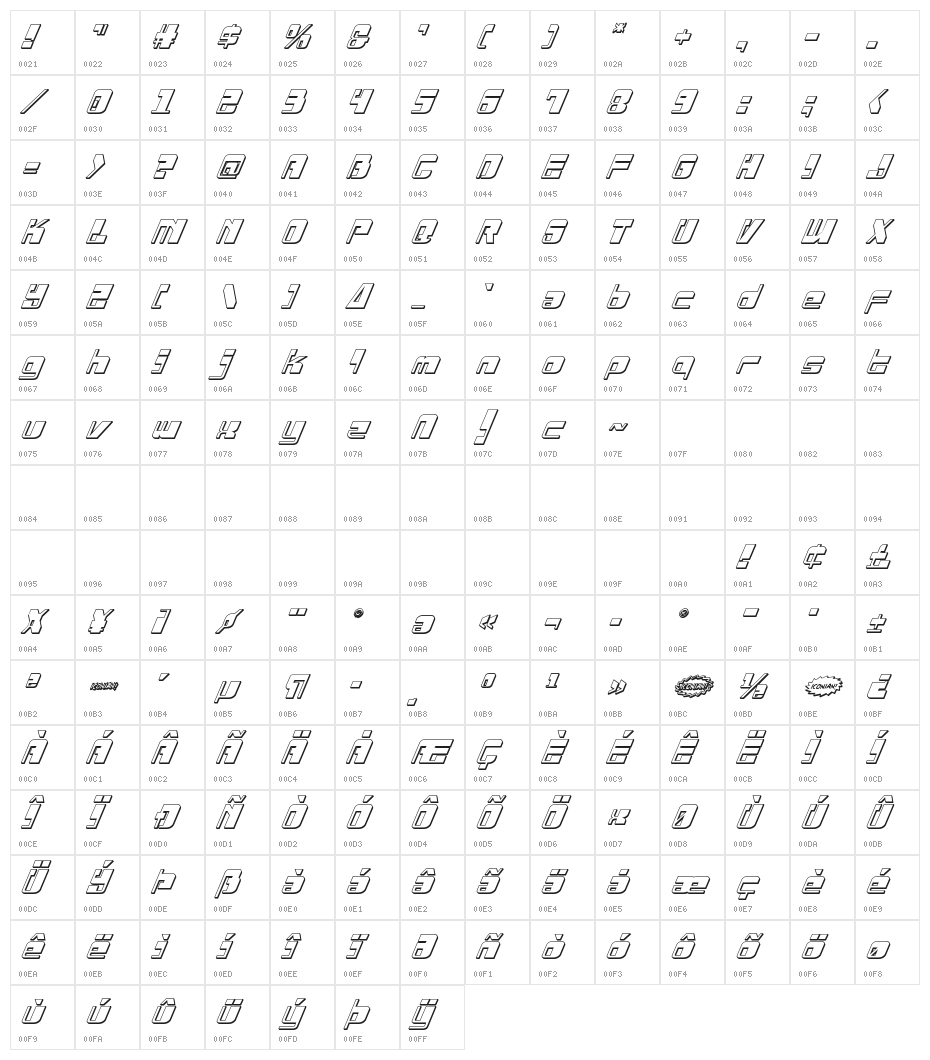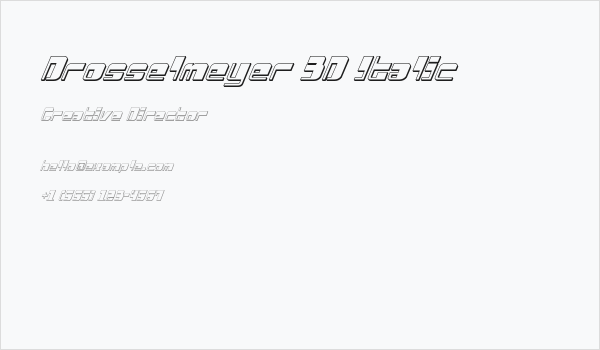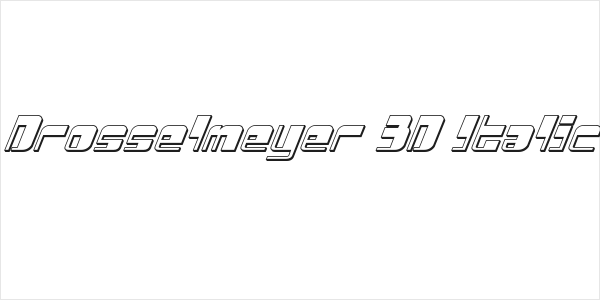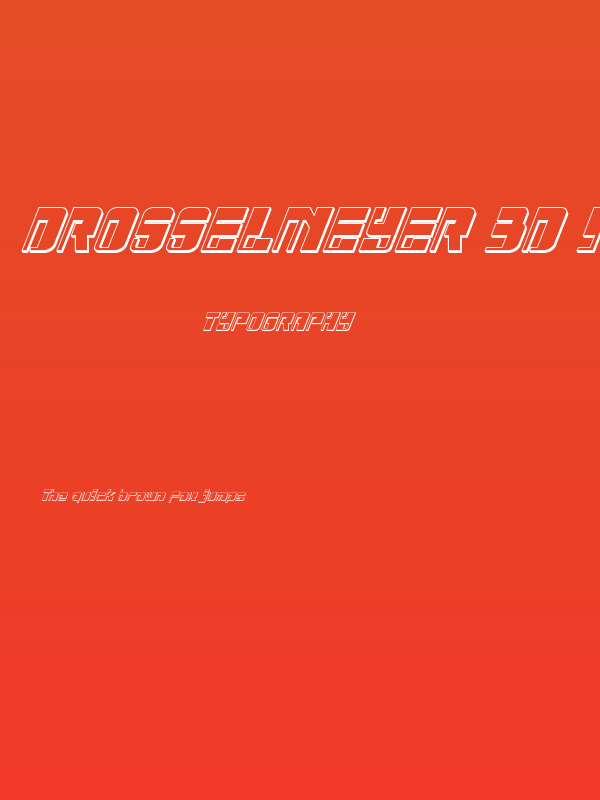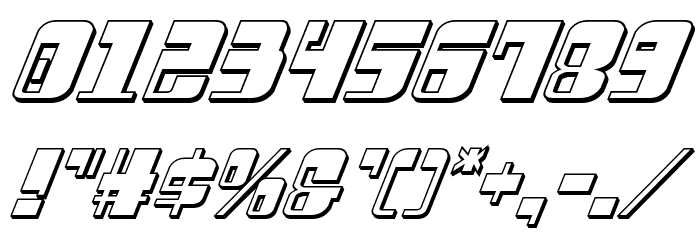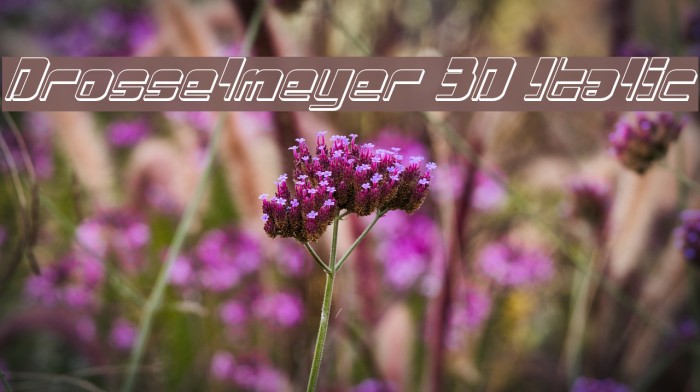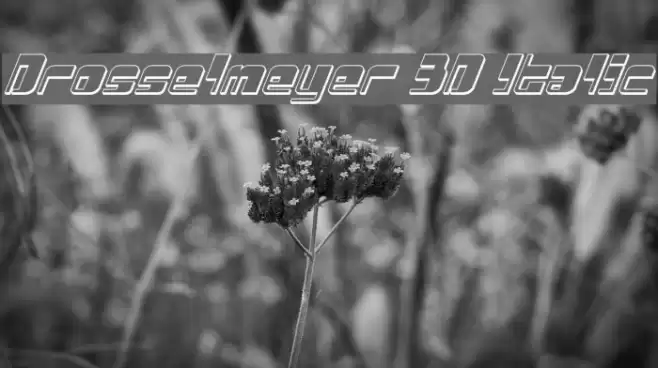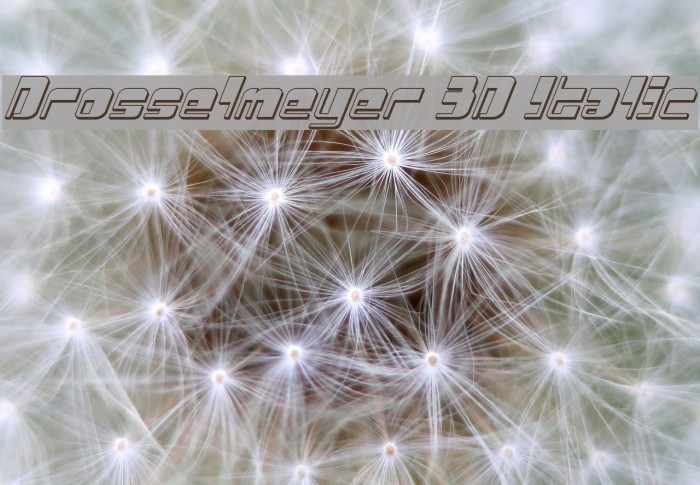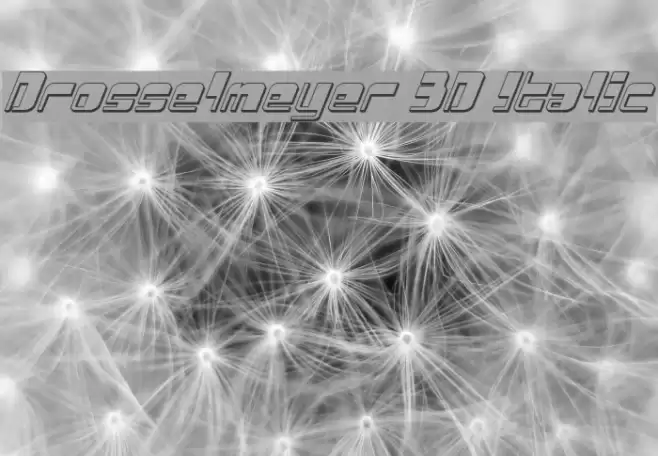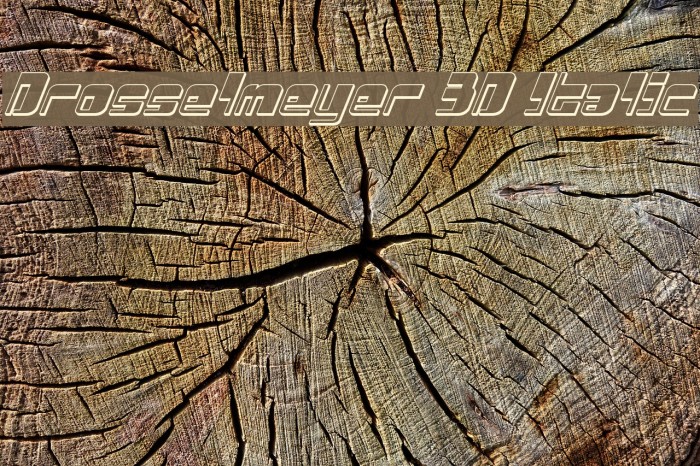
Drosselmeyer 3D Italic Font
Drosselmeyer 3D Italic Description
This font features a bold, three-dimensional design with an italic slant, creating a dynamic and futuristic appearance. The characters are outlined, giving them a hollow look that enhances the 3D effect. The uppercase and lowercase letters maintain a consistent style, with sharp angles and clean lines that contribute to a modern aesthetic. The numerals and special characters follow the same design principles, ensuring uniformity across all glyphs. This font's unique style makes it stand out, suitable for projects that require a bold and eye-catching typeface.
| Overall Style | Futuristic |
| Proposed Projects | Ideal for video game titles, sci-fi movie posters, tech branding, and futuristic event flyers. |